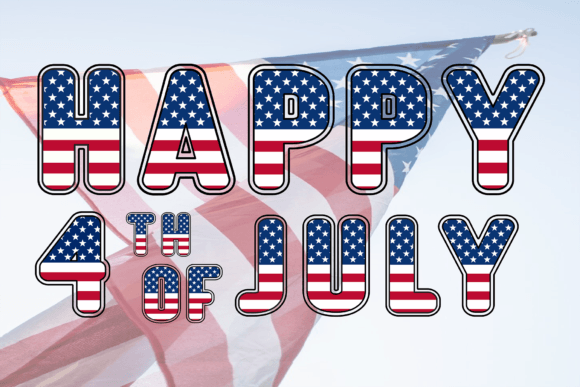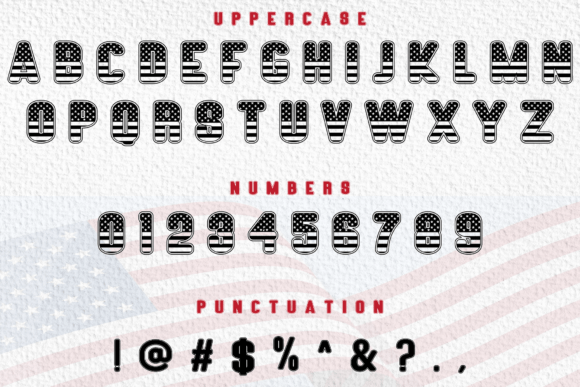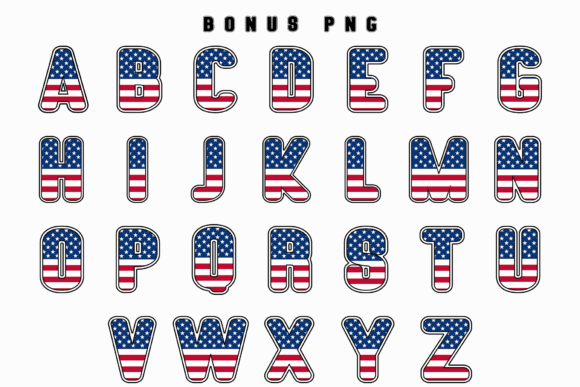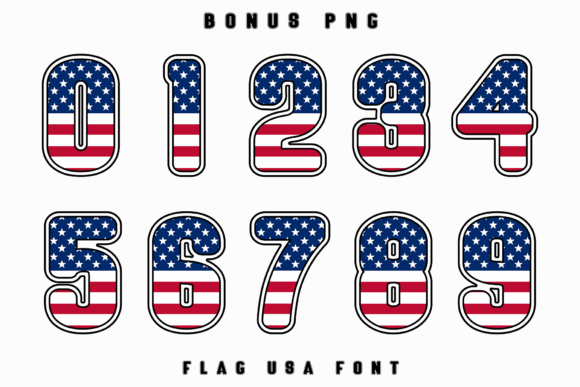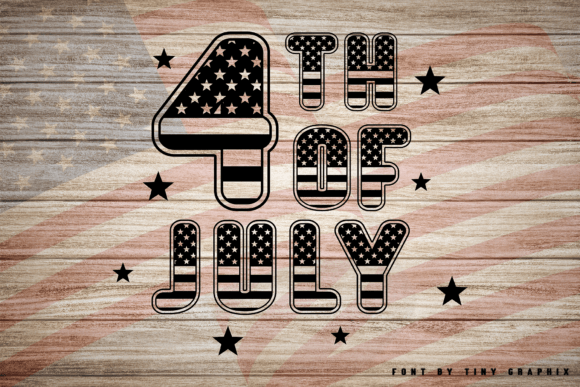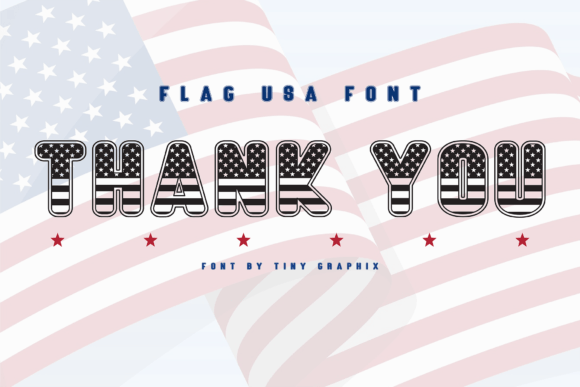
Embrace the Star-Spangled Spirit with Flag USA Font
A Patriotic Celebration in Every Stroke
The Flag USA font is an exceptional, decorative, and multi-colored typeface that seamlessly merges the star-spangled spirit of the United States into every stroke. With a design inspired by the heartwarming patterns of the USA flag, it stands as an ideal pick for projects related to national occasions such as the Fourth of July or Memorial Day. This font is perfect for designers, crafters, and creative hobbyists looking to add a unique touch of exhilarating, playful charm to their projects.
- ✨ The vibrant, multi-colored design that instantly evokes a sense of patriotism and celebration
- ✅ The font’s versatility, making it suitable for a wide range of projects, from flyers and posters to social media graphics and crafts
- 🎉 The way it combines fun and patriotism, making it perfect for festive and lighthearted designs
While the Flag USA font is an amazing addition to any design project, there are a few things to keep in mind: ⚠️ The font’s intricate design can make it difficult to read at smaller sizes, so it’s best used for headlines or titles. Additionally, the multi-colored design may not be suitable for projects that require a more formal or traditional look.
Exploring OpenType Features
The Designer Inspiration Behind Flag USA
The Flag USA font was designed by a team of creatives who wanted to capture the essence of American patriotism in a fun and playful way. Inspired by the star-spangled patterns of the USA flag, they created a font that’s perfect for celebrating national occasions and adding a touch of whimsy to any design project.
| Font Name | Flag Usa Font |
| Author | TINY GRAPHIX |
| Q: What is the Flag USA font? | A: The Flag USA font is a decorative, multi-colored typeface inspired by the patterns of the USA flag. |